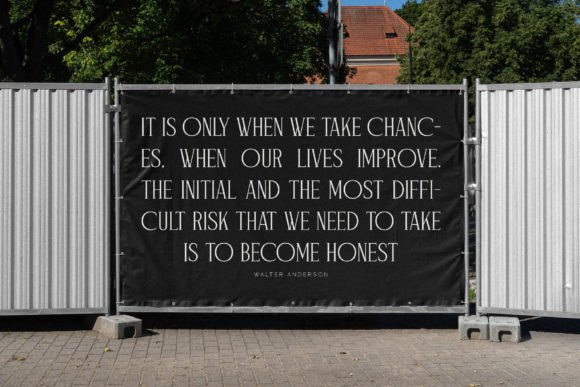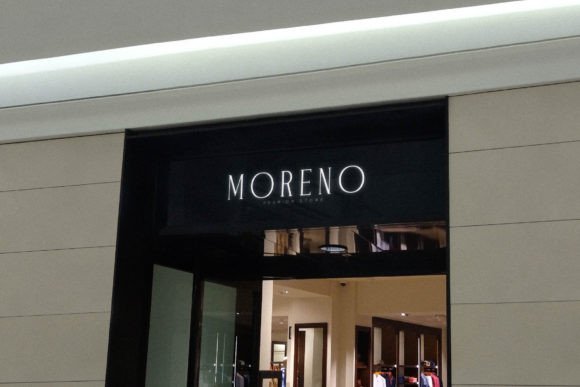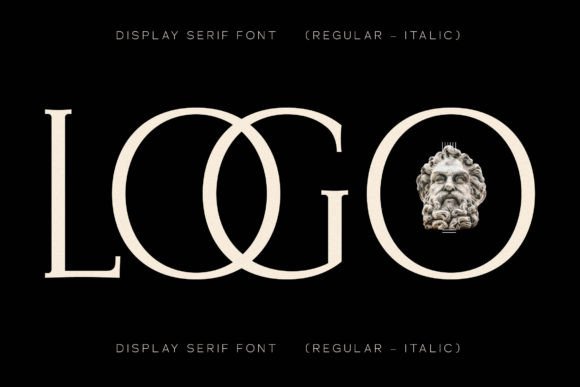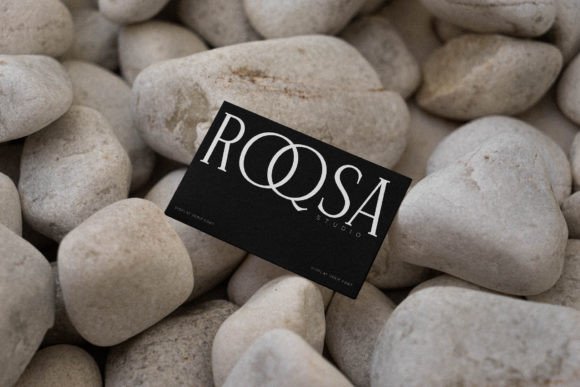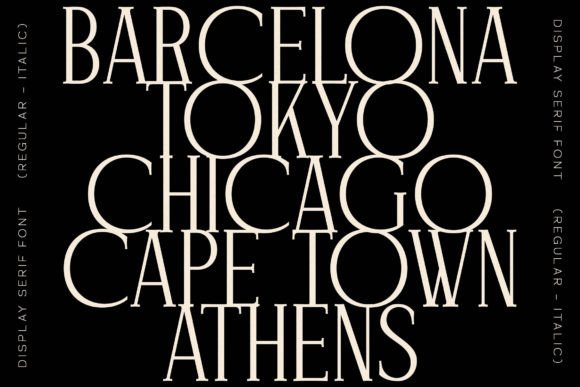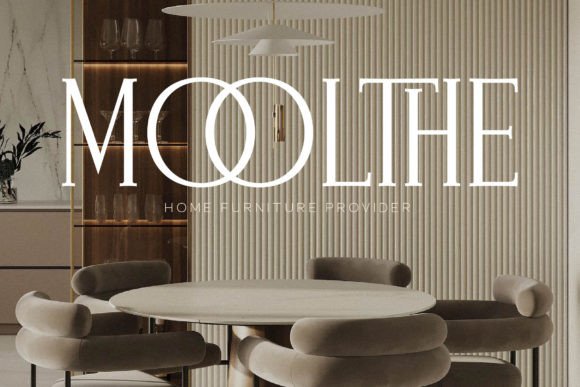
Introducing Figurlce Font: The Epitome of Elegance and Luxury
In the realm of typography, a font can make or break the visual identity of a brand, product, or creative project. For designers and crafters seeking to infuse their work with a touch of sophistication and refinement, Figurlce Font emerges as a stellar choice. This modern and classic serif typeface boasts a unique style that effortlessly marries tradition with contemporary flair, making it an ideal selection for a wide array of applications.
The Distinctive Characteristics of Figurlce Typeface
Figurlce Typeface is distinguished by its elegant lines, precise craftsmanship, and a certain je ne sais quoi that sets it apart from more conventional serif fonts. Its design is characterized by:
- Classic Serif Structure: Figurlce retains the traditional serif structure, which provides a sense of timelessness and familiarity.
- Modern Twists: Subtle modern adjustments to the classic form give Figurlce a fresh and current look, ensuring it stands out in digital and print media.
- Unique Style: The typeface possesses a distinctive personality, with carefully considered letterforms that contribute to its luxurious feel.
Versatile Applications for Figurlce Font
The versatility of Figurlce Font is one of its most compelling attributes. Its elegant and luxurious appearance makes it suitable for a myriad of uses, including:
- Elegant & Luxurious Logos: Create a lasting impression with a logo that exudes sophistication and high-end quality.
- Book or Movie Title Design: Add a touch of glamour to your titles, making them instantly memorable.
- Fashion Brands: Perfect for branding that requires a sense of style, luxury, and trendiness.
- Magazines: Elevate your publication’s typography, making it more engaging and visually appealing.
- Clothes: Ideal for fashion labels, lookbooks, and marketing materials that demand a high level of aesthetic sophistication.
- Lettering and Quotes: Use Figurlce to add a touch of elegance to your lettering projects and quote designs.
Why Choose Figurlce Font?
In a sea of typefaces, Figurlce Font stands out for several reasons:
- Uniqueness: Its distinctive style ensures your project won’t look generic or get lost in a sea of similar designs.
- Legibility: Despite its elegant and sometimes intricate design, Figurlce maintains high legibility across various sizes and applications.
- Timeless Appeal: The blend of classic and modern elements ensures that Figurlce remains relevant and stylish for years to come.
Tips for Using Figurlce Font Effectively
To maximize the impact of Figurlce Font in your projects, consider the following tips:
- Pair with Complementary Fonts: For optimal results, pair Figurlce with fonts that complement its luxurious and elegant feel, such as sans serifs for contrast.
- Adjust Kerning and Tracking: Fine-tune the spacing between letters and words to enhance readability and aesthetic appeal.
- Experiment with Colors: While Figurlce looks stunning in traditional black and white, don’t be afraid to experiment with colors that match your brand or project’s palette.
Figurlce Font is more than just a typeface; it’s a tool for designers and crafters to imbue their projects with elegance, luxury, and a modern edge. Its unique blend of classic serif elements and contemporary twists makes it a versatile choice for a wide range of applications. Whether you’re designing a logo, a magazine, or a fashion brand, Figurlce Font offers the perfect combination of style, sophistication, and timeless appeal.